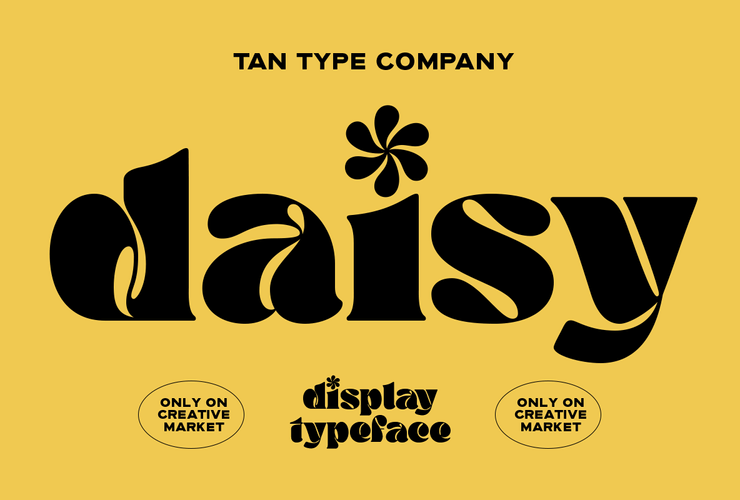
TAN Daisy specimen and verified specs
- Styles: 1 (Regular)
- Glyphs: 332
- Language support: Basic Latin (English), Western European, Central & Eastern European
- OpenType features: kerning
- Designer: Novia Jonatan (TanType Co.)
What TAN Daisy looks like
TanType’s own description is brief: “a display typeface full of retro power”, “quirky, groovy, and funky”, “bold and thick”. The specimens rendered from the font files show what that means in practice.
The letters are extremely heavy, with counters squeezed down to thin slits. Instead of open bowls, the D, B, P, a, b, d and the figures have narrow curved cuts running through them, which gives the font a stencil-like, almost carved look. Curves swell and pinch the way 1970s headline lettering does. The capital E is drawn like a reversed 3, the W, X and Y lean into curly shapes, and the ampersand is a looping 8-like form.
The detail people remember is the flower. The dots on the i and j, and on the exclamation and question marks, are small six-petal daisies instead of round dots. In a word like “Daisy” the dot becomes the biggest decorative element on the line. Use that with care. A paragraph full of i’s turns into a field of flowers, which is fun on a poster and distracting anywhere else.
What’s in the TAN Daisy package
- Styles: one Regular style. There are no other weights or an italic.
- Glyphs: 332 in the licensed file.
- Designer: Novia Jonatan, according to the font files, for TanType Co.
Language support and OpenType features
TAN Daisy covers Basic Latin plus the accented letters for Western European languages (French, Spanish, German, Portuguese and others) and Central and Eastern European languages (Polish, Czech, Croatian, Hungarian and others).
The only OpenType feature is kerning, the built-in spacing that tightens or loosens specific letter pairs so the word looks evenly spaced. Every mainstream app, from Word to Illustrator to Canva, applies it automatically.
There are no ligatures, stylistic alternates or swashes, and nothing is stored in the Private Use Area (PUA). The flower dots aren’t hidden extras. They are part of the normal i, j, exclamation mark and question mark, so you get them just by typing. That makes TAN Daisy easy to use in Canva, Cricut Design Space and other simple tools, which can’t reach OpenType alternates.
Where TAN Daisy works, and what to pair it with
This is a font for big, short text: record sleeves, gig and festival posters, café and bakery signs, kids’ party invitations, packaging fronts, sticker designs and social graphics with a 1970s mood. Because the counters are so narrow, it needs to be set large. At small sizes the slits close up and the letters read as solid blobs. Leave some extra tracking if you set it in all caps.
Pair it with something calm:
- DM Sans or Poppins for supporting text. Their round, geometric shapes echo Daisy’s curves without competing.
- Cooper Hewitt or Space Grotesk for small labels if you want a slightly technical contrast.
Will TAN Daisy work in Canva or Cricut?
Yes. It has no hidden alternates, so the flower dots and every other glyph come straight from the keyboard. Canva needs a paid plan to upload custom fonts.
Who made TAN Daisy?
What font pairs well with TAN Daisy?
A plain geometric sans such as DM Sans or Poppins for body text keeps the focus on Daisy’s headline.